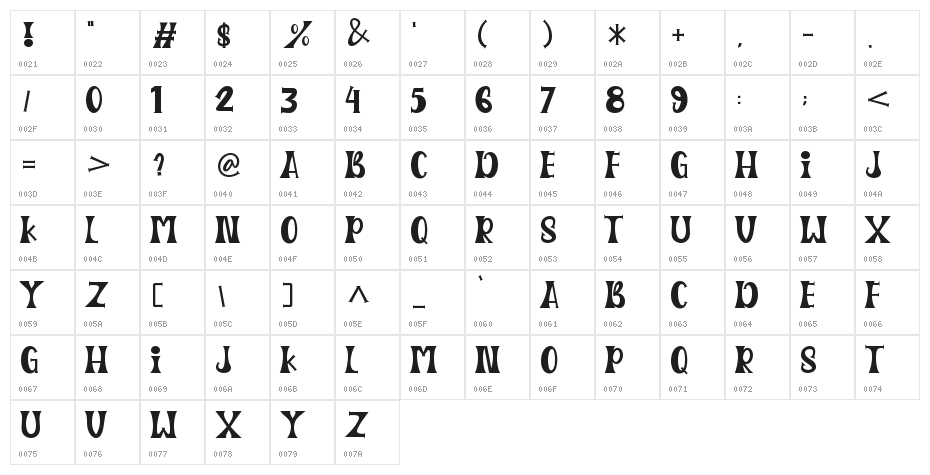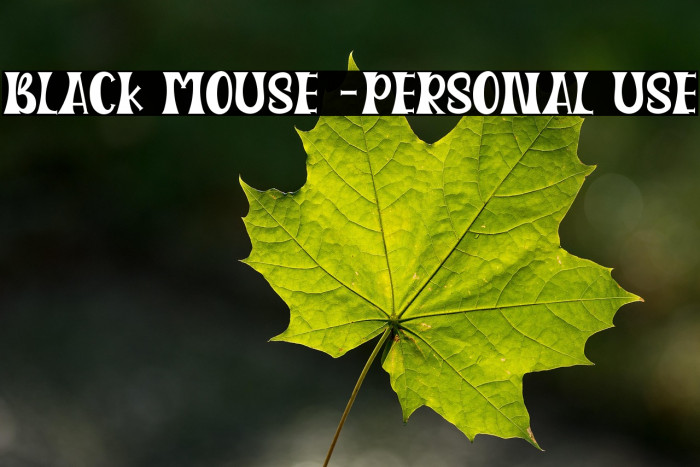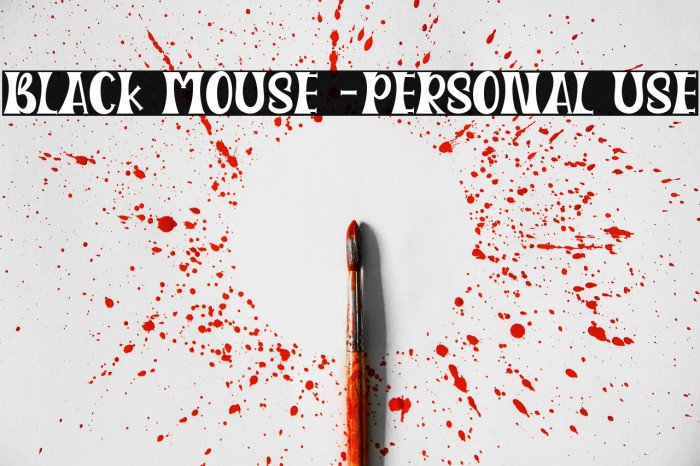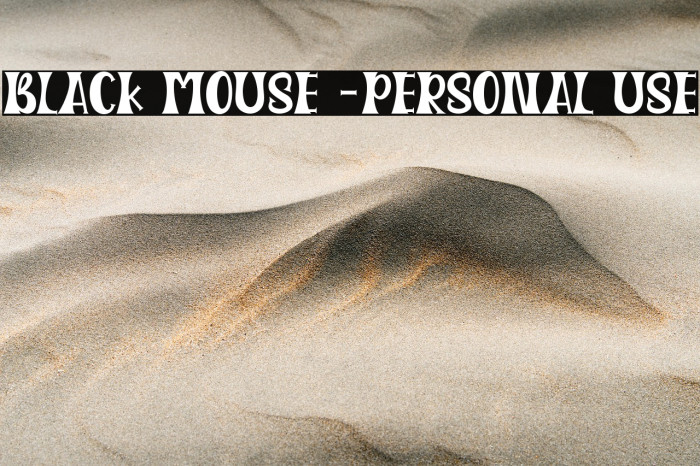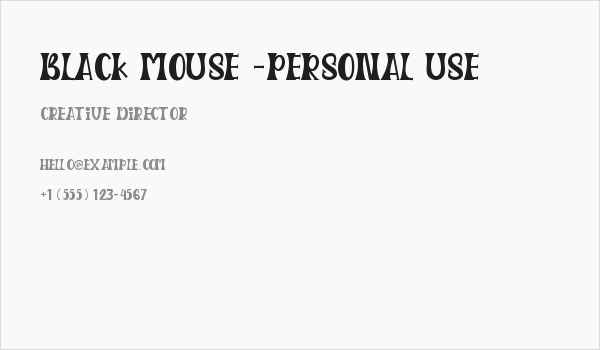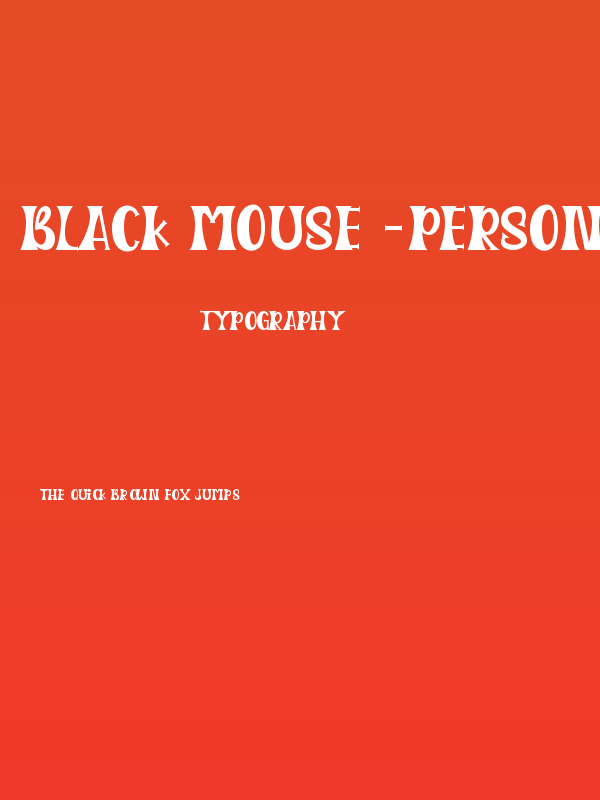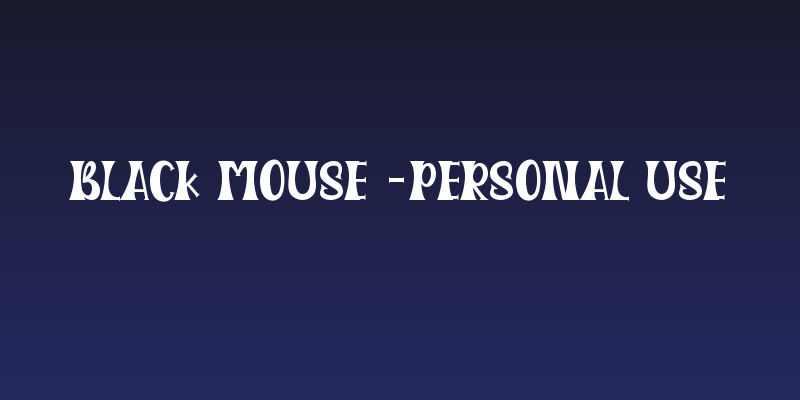
Black Mouse -Personal Use Font
Black Mouse -Personal Use Description
This font features a bold and playful design with exaggerated curves and sharp edges, creating a whimsical and dynamic appearance. The uppercase letters have a distinct flair, with some characters featuring unique embellishments that add to the font's decorative nature. The lowercase letters maintain the same playful style, ensuring consistency throughout the typeface. The numbers and special characters are equally bold and stylized, making them stand out. This font is ideal for projects that require a fun and eye-catching aesthetic.
| Proposed Projects | Ideal for children's book covers, playful branding, party invitations, and decorative posters. |